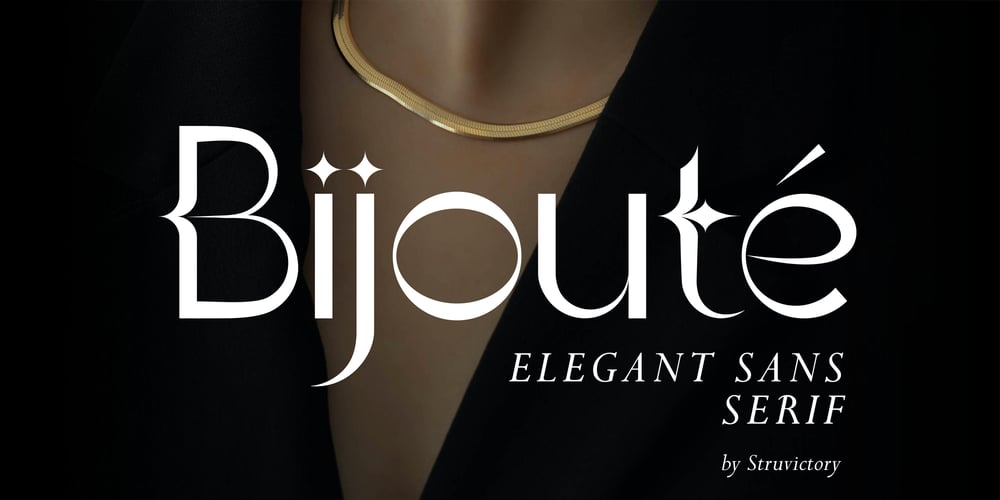
Bijoute Sans Font Family was designed by Viktoryia Strukouskaya and published by Struvictory.art. Bijoute Sans contains 1 styles and family package options. Bijouté is a modern sans serif font with bohemian motives. The font is created in classic proportions and decorated with elegant decor. The font is suitable for the design on the theme of mysticism, esotericism, fashion and style.This font is based on my Nomad Bohemian Sans:https://www.myfonts.com/collections/nomad-decorative-font-struvictory-art